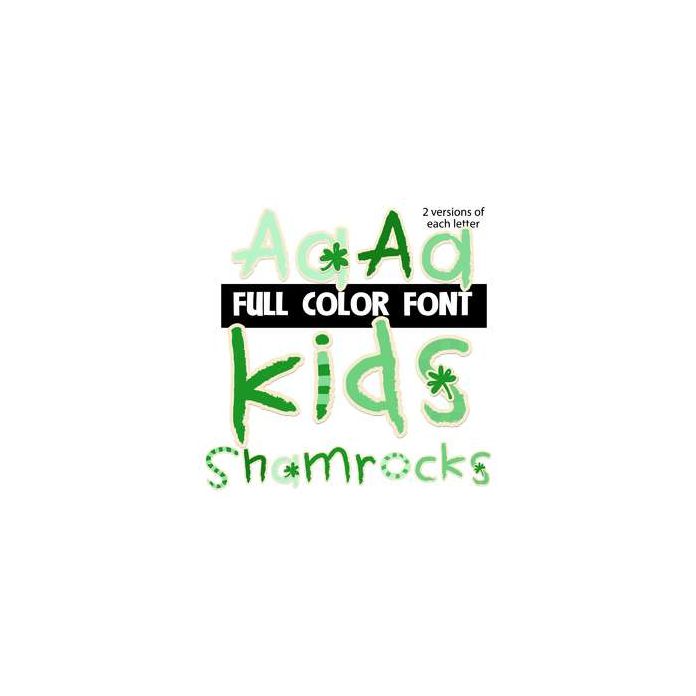
This full-color font features green, youthful lettering and shamrocks here and there. There is a lower and uppercase alt case you can access through your system's character map or Silhouette's glyph map.